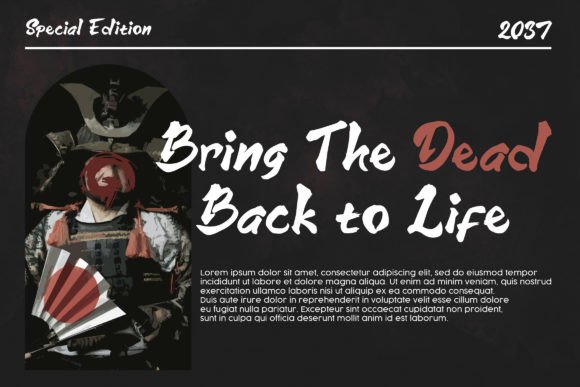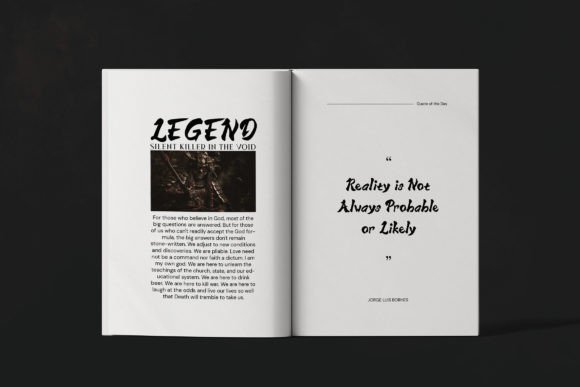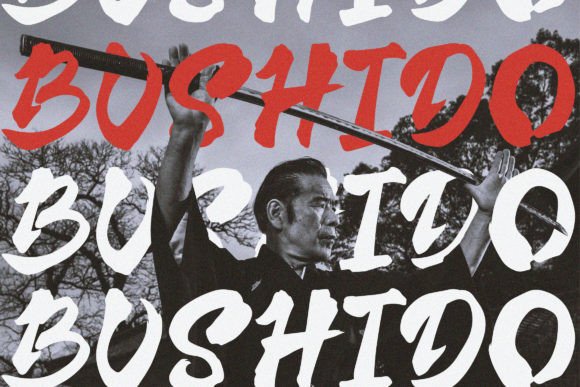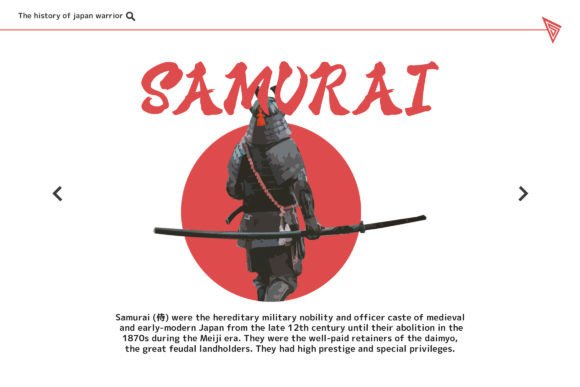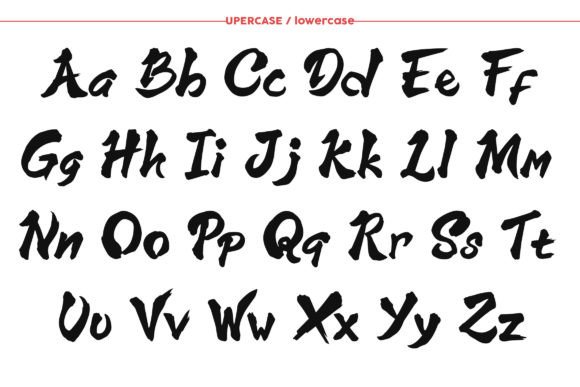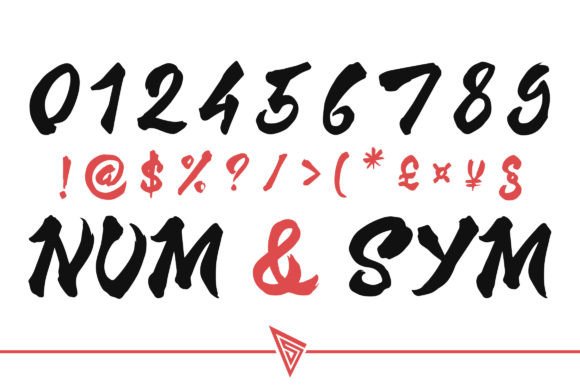
Introduction to Japan Wave Font
Have you ever found yourself captivated by the delicate strokes of a Japanese calligraphy piece, and wished you could infuse that same level of elegance into your creative project? For designers seeking a unique and authentic touch, the Japan Wave Font is a valuable resource that’s sure to elevate your design to the next level.
This beautifully crafted Japanese-style display font is designed to provide a beautiful and easy-to-read combination of sentences, making it an ideal choice for any creative project. With its handwritten feel and authentic Japanese look, the Japan Wave Font is a high-quality design resource that’s perfect for designers looking to add a touch of sophistication to their work.
Whether you’re working on a commercial project or simply looking for a unique font to spice up your social media graphics, the Japan Wave Font is a fantastic choice that’s sure to leave a lasting impression on your audience.
Key Features of Japan Wave Font
- Unique, hand-drawn design inspired by traditional Japanese art and architecture, perfect for creative projects that require a touch of Eastern flair.
- Perfect for designers and artists working on creative projects that require a unique and eye-catching font, such as graphic novels, manga, or Japanese-inspired art.
Honest Review: Japan Wave Font
I recently stumbled upon the Japan Wave Font and I’m excited to share my honest review with you. As a designer, I’m always on the lookout for high-quality design resources that can elevate my creative projects.
What works well with the Japan Wave Font is its unique and quirky design. The font features a stylized wave pattern that adds a touch of elegance and sophistication to any design. I’ve used it for a few projects and I must say, it’s been a great addition. ✨ The transparent background also makes it easy to use with any background image or color.
- Unique wave pattern
One limitation of the Japan Wave Font is that it’s not suitable for large blocks of text. The font is best used for headlines, titles, or other design elements where you want to add a touch of personality. ⚠️ However, this is a minor issue and doesn’t detract from the overall quality of the font.
Overall, I’m impressed with the Japan Wave Font and I would definitely recommend it to other designers. It’s a great resource to have in your toolkit, especially for creative projects where you want to add a unique touch.